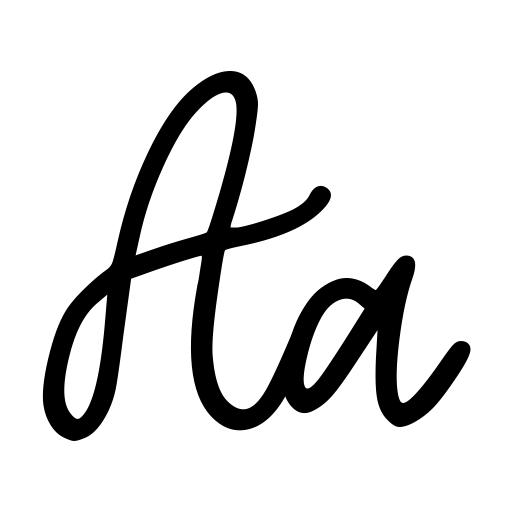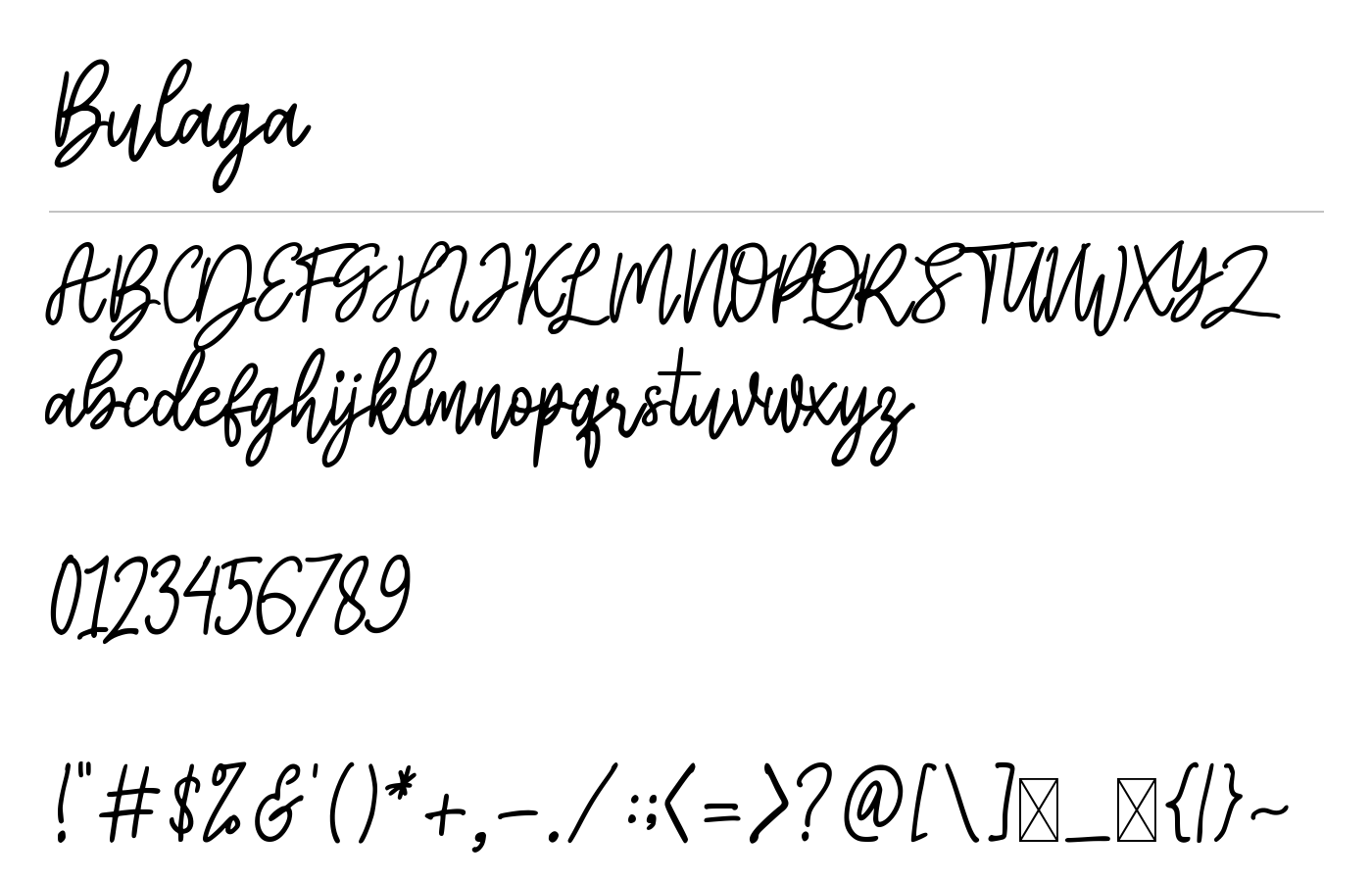
Bulaga is a lively and casual script font that mimics natural handwriting with smooth, flowing strokes and a slightly tall x-height, giving it an approachable and energetic feel. Its consistent weight and slightly rounded letterforms make it perfect for branding, invitations, and creative projects that want to convey friendliness and personal touch. This font works best in headlines, logos, and packaging where a warm, informal style is desired.
Bulaga Font
About Bulaga Font
| Font family | Bulaga Font |
| Designer | Ikrar Bey Khubaib |